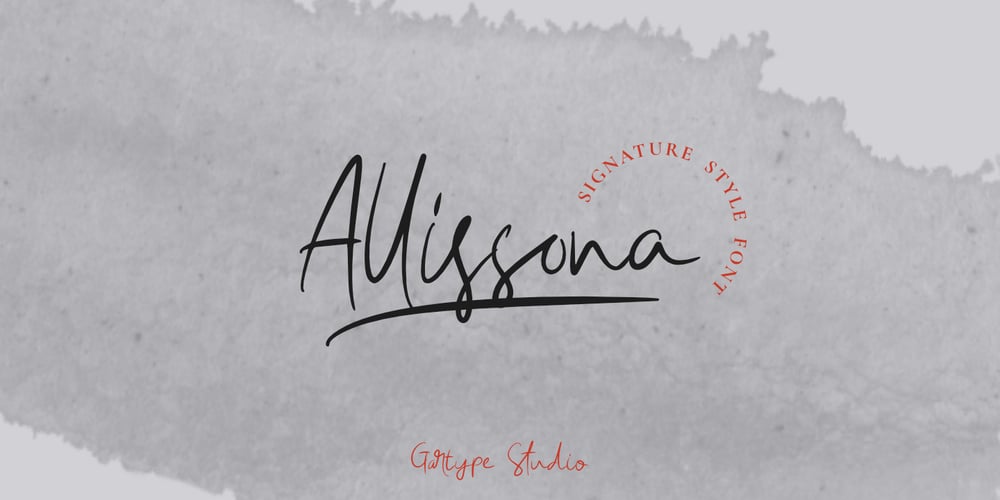
Allissona GT Font Family was designed by Gumilang Anggara Ruslan and published by Gartype Studio. Allissona GT contains 2 styles and family package options. Seeing the need of visual minimalism and luxury so we are inspired to makeup this Allissona GT calles font, the font in the form of a signature that is suitable for the needs of course a case of signatures, logos, letters, ads, products, digital printing, to digital ads.Allissona GT equipped with a swash to complete the impression of your design signature design course and add a sense of luxury